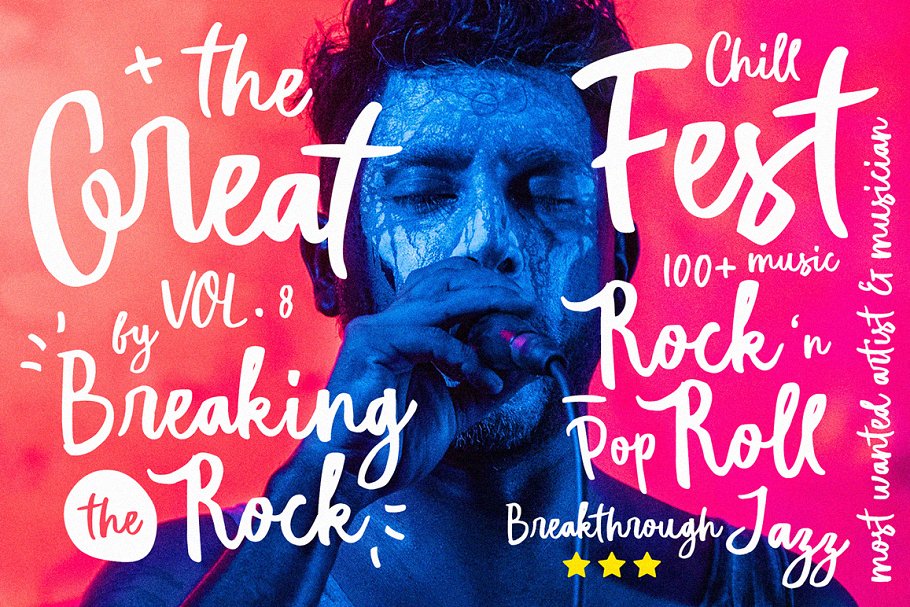
Are you looking for the best font for your next comic script project? Look no further than Hillmark, the brand new typeface designed by Fajar Wahyu Pribadi. With its edgy style and undeniable artsy look, Hillmark is the perfect addition to your fashion branding, magazine, handwriting logo, inspirational quote poster, and more.
This script font family features uppercase and lowercase letters, numerals and punctuations in OpenType standard, multilingual characters with accents, stylistic alternates, and ligatures. With language support for Danish, Dutch, English, Filipino, Finnish, French, Galician, German, Icelandic, Indonesian, Irish, Italian, Norwegian Bokmål, Norwegian Nynorsk, Portuguese, Romansh, Spanish, Swahili, Swedish, and Swiss German, Hillmark is truly versatile.